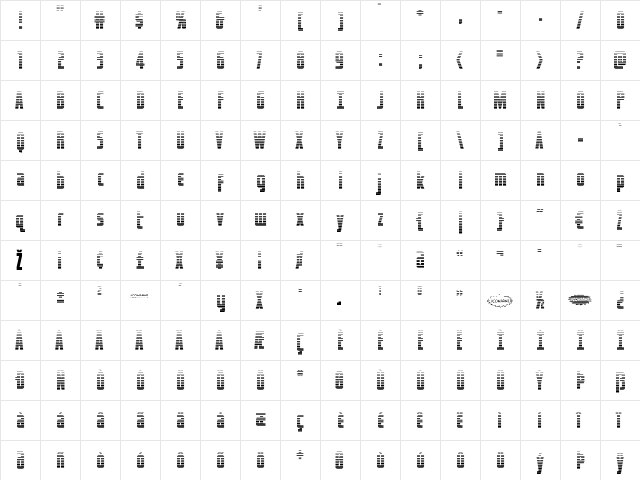
Captain Canaveral Gradient Regular
Design Context for Captain Canaveral Gradient Typeface
Captain Canaveral Gradient takes a measured approach to typography — its balanced proportions and neutral character make it a reliable workhorse for both digital and print work.